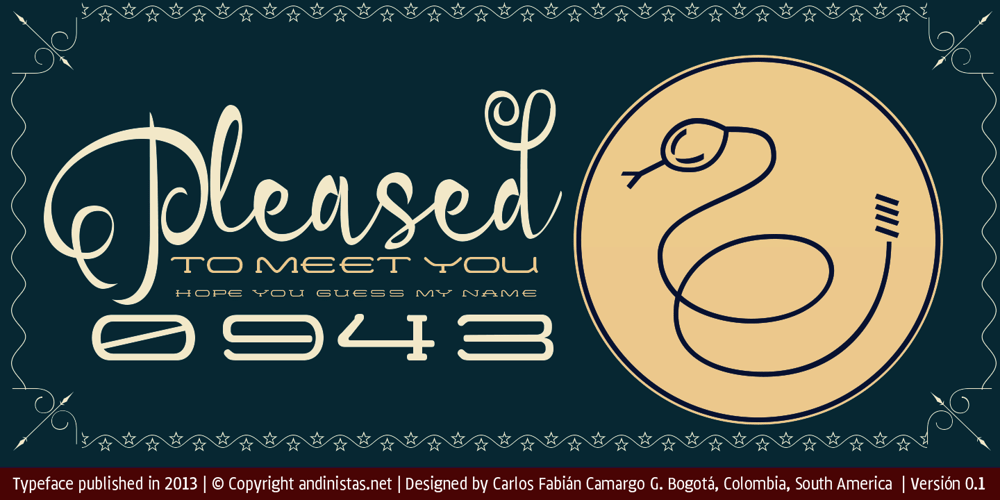
Bengala Font Family was designed by Carlos Fabián Camargo Guerrero and published by Andinistas. Bengala contains 3 styles and family package options. Bengala is a font based on Calligraphy & Geometry designed by Carlos Fabián Camargo. Its purpose is to be an innovative typographic system combining Script letters with geometric and hard Caps letters. The contradictory styles are ideal for designing covers, posters, branding and packaging. Its smooth calligraphic look meticulously incorporates characters to design logos and phrases that communicate dynamism and strategy. Bengala Script was inspired by Mistral by R. Excoffon. Bengala Script provides violent and unstable lines with generous spacing between the letters and tight horizontal proportions, producing showy upper and lower case italics inspired by French Gothic calligraphy late fifteenth century. For this reason, Bengala Script retains some uninterrupted calligraphic logic, up and down sometimes higher or shorter than the height of the lowercase, creating dynamism through a variable amount of contrast between thick and thin strokes. Bengala Dingbats has 62 drawings designed to accompany the designs. Script and Caps Bengala have different gender and the similar X height produces more visual appeal. This way Bengala Caps – inspired by the Porshe logo, due to its geometric uppercase Roman construction, extended horizontal proportions, light caliber, rounded strokes terminations and generous spacing between letters. Special thanks to John Moore and Manuel Corradine for their help with Open Type.